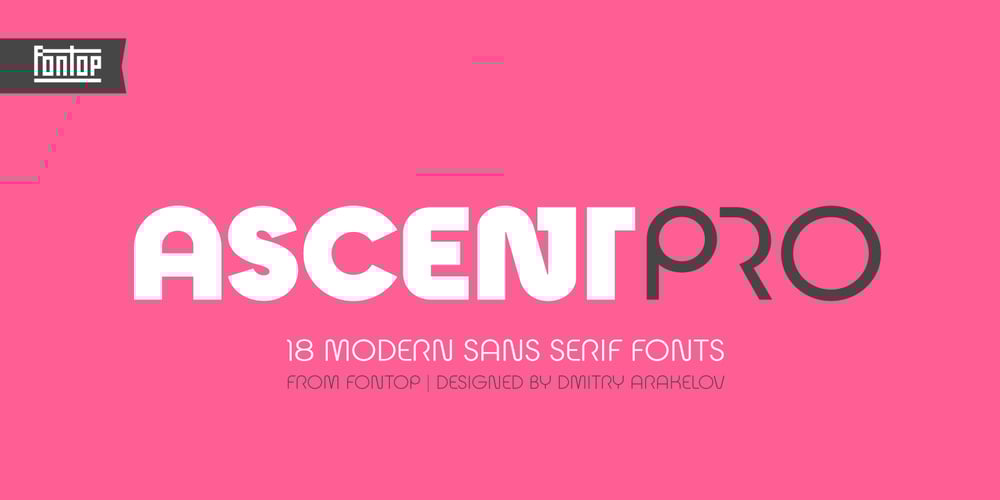
Ascent Pro
Ascent Pro font
Ascent Pro Font Family was designed by Dmitry Arakelov and published by Fontop. Ascent Pro contains 31 styles and family package options. Ascent Pro – a modern geometric sans serif with an engaging character. Inviting and versatile, with ton of stylistic alternates and ligatures to choose AscentPro works perfectly for logos, headlines, posters, packaging, business cards and many more! Thinner fonts look great in text copy. All in all 18 fonts including obliques provide you with a huge number of design options.HOW TO ACCESS ALTERNATE CHARACTERSOpen glyphs panel:In Adobe Photoshop go to Window – glyphsIn Adobe Illustrator go to Type – Glyphs / or Window – Type – OpenTypeFEATURES:18 weights and obliquesStylistic Alternates & Contextual AlternatesStandard Ligatures & Discretionary LigaturesNumerals & PunctuationFractions, Superscript & SubscriptMultiple Latin Languages Supported